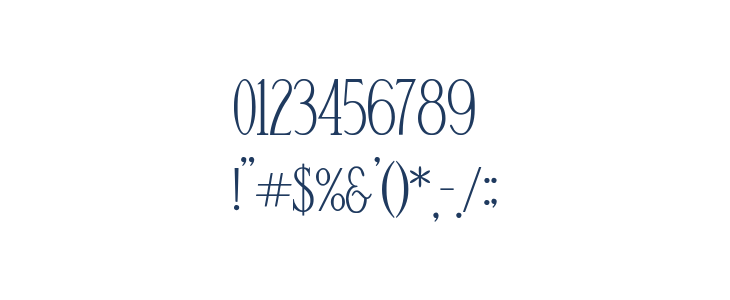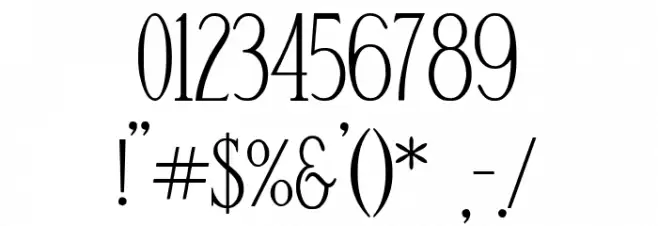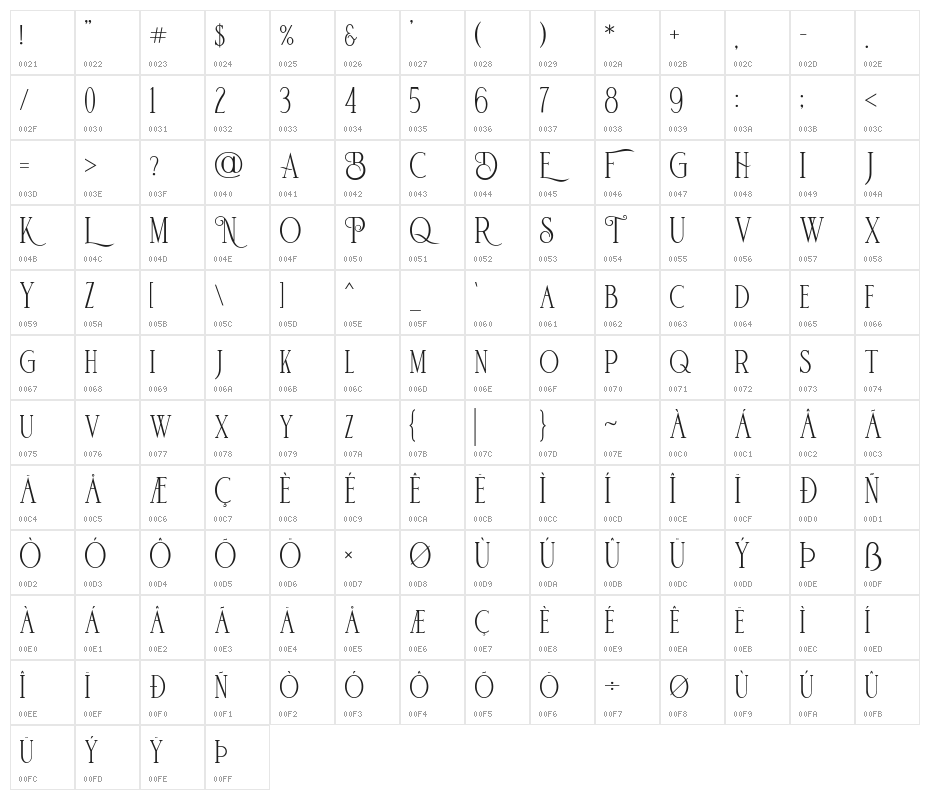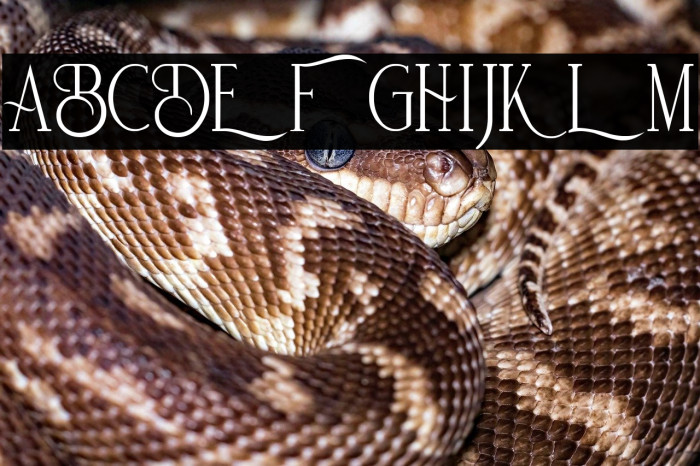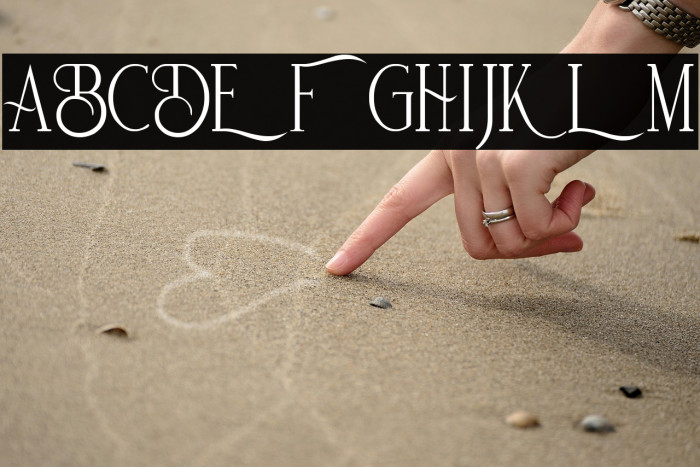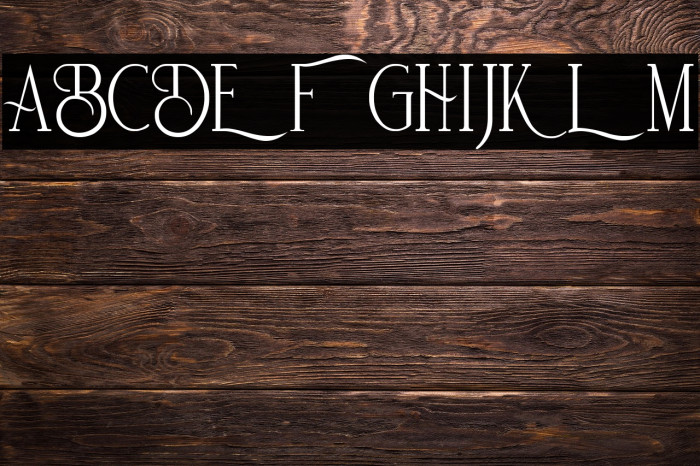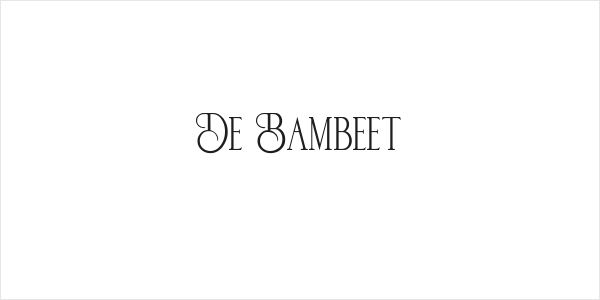
De Bambeet Font
De Bambeet Description
This font features a unique blend of elegance and playfulness, characterized by its decorative and whimsical serifs. The uppercase letters exhibit a distinct flair, with some characters like 'A' and 'F' incorporating sweeping curves and extended lines that add a touch of sophistication. The lowercase letters maintain a more traditional serif style, providing a balanced contrast to the ornate uppercase. The numerals are clear and legible, with a slight artistic twist that complements the overall design. Special characters are crafted with the same attention to detail, ensuring consistency throughout the font. This typeface is ideal for projects that require a touch of elegance and creativity, making it suitable for invitations, branding, and editorial design.
An elegant and whimsical serif font with decorative uppercase letters and balanced lowercase characters from Uncategorized fonts.
- Font: De Bambeet
- Proposed Projects: Ideal for wedding invitations, luxury branding, editorial layouts, and artistic posters.
- Use Case: Headlines, Logos, Invitations